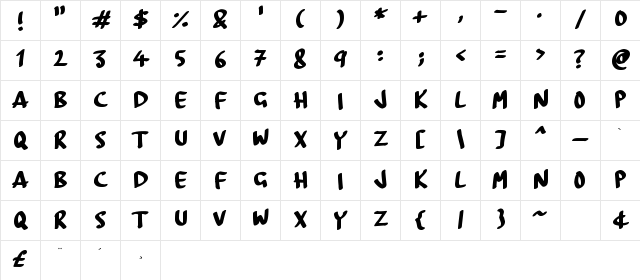
Complete BoardMarker Regular glyph index. Displaying only characters natively supported by BoardMarker Regular font.
BoardMarker is a composed and adaptable typeface that performs quietly and consistently across a wide range of design contexts.